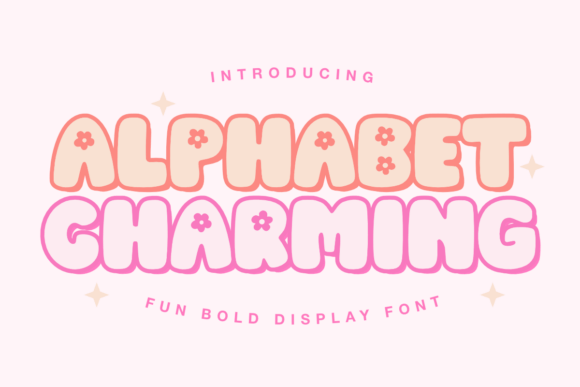
Unlock Your Creativity with Alphabet Charming Font
Meet Alphabet Charming Font, a vibrant display font that embodies the spirit of celebration and creativity. This versatile font is designed to adapt to any occasion, from the warmth of Christmas to the coziness of Autumn days. With its adaptable design, Alphabet Charming Font is a valuable asset for designers looking to add a personal touch to their projects.
Whether you’re a seasoned crafter or a beginner, Alphabet Charming Font is sure to inspire your next creative endeavor. Its compatibility with crafting platforms makes it a go-to choice for Cricut and Silhouette enthusiasts, and its characterful design makes it perfect for adding a touch of personality to your journaling, planning, and note-taking.
Alphabet Charming Font Key Features
- Character Set: This font includes a comprehensive character set, covering Latin, Cyrillic, and Greek alphabets, making it suitable for multilingual projects.
- Unique Characteristics: Alphabet Charming Font boasts a unique, hand-drawn design with subtle imperfections, giving it a charming and personal touch that sets it apart from other fonts.
- Style Variations: The font includes multiple style variations, including Regular, Italic, Bold, and Bold Italic, providing users with a range of options to suit their design needs.
Designer Review: Alphabet Charming Font
Overall, Alphabet Charming Font is a unique and playful font that can add a touch of whimsy to your designs. ✨ I love the way it handles letter combinations, making it perfect for creative projects.
- ✨ Unconventional letterforms create a charming, handwritten feel.
- ✨ Supports a wide range of languages, making it versatile for international designs.
- ✨ Includes a variety of weights and styles, allowing for endless customization options.
- ⚠️ May not be suitable for formal or professional projects, as it can come across as too casual.
- ⚠️ May require additional styling to ensure proper legibility at smaller font sizes.
- ⚠️ Some users may find the font’s irregularities distracting or difficult to read.
In conclusion, Alphabet Charming Font is a great choice for designers looking to add some personality to their work. While it may not be suitable for every project, it’s perfect for those who want to make a statement and stand out from the crowd.
For the best results, use the Alphabet Charming Font for titles, headings, and emphasis. It’s particularly effective for:
1. Children’s book covers and illustrations.
2. Wedding invitations and stationery.
3. Social media graphics and branding.